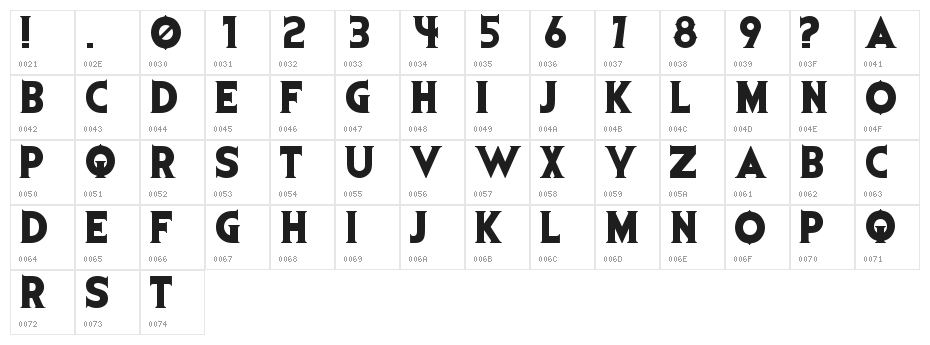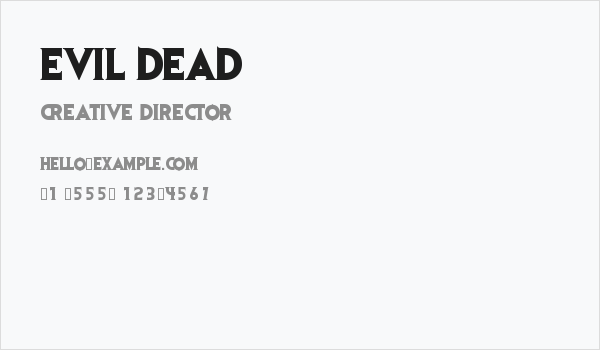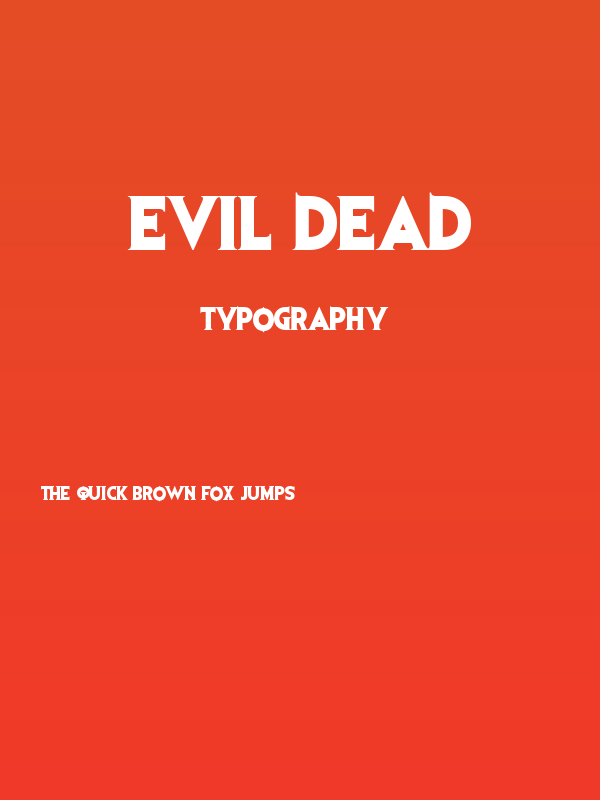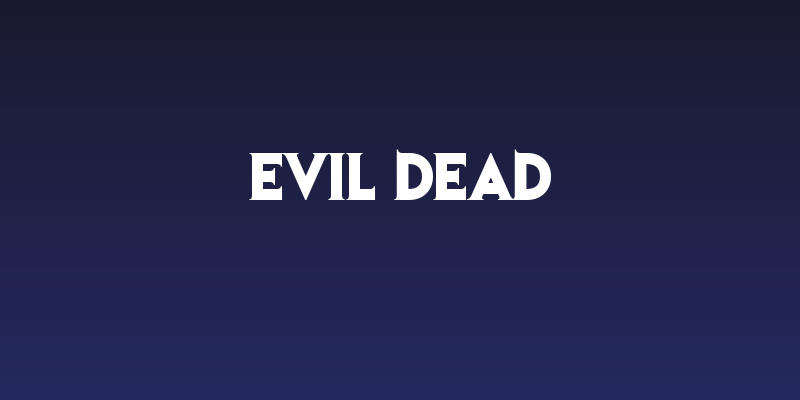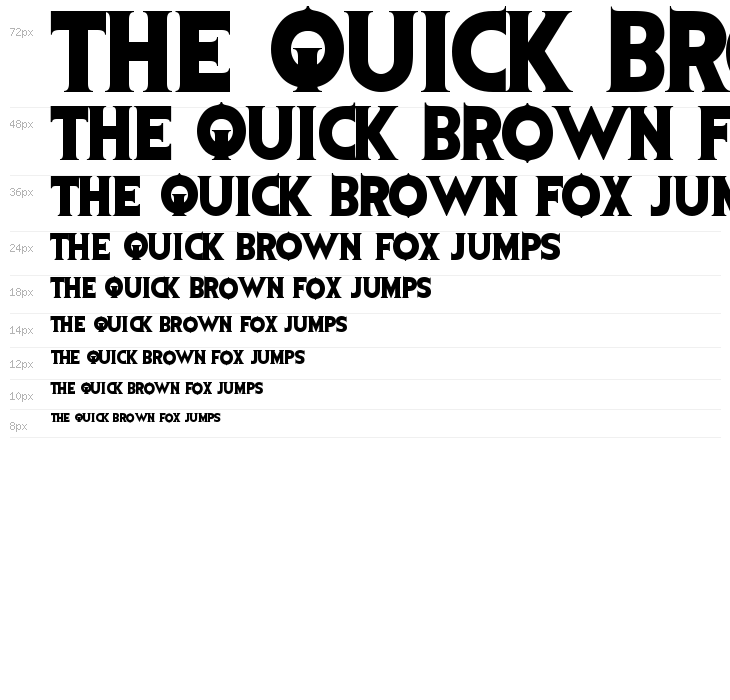
Evil Dead Font
Evil Dead Description
This font features a bold and striking design with sharp, angular edges and a strong presence. The uppercase letters are particularly prominent, with a unique cutout style that adds a sense of drama and intensity. The numbers and special characters maintain this bold aesthetic, ensuring consistency across all elements. The font's design is reminiscent of classic horror themes, making it ideal for projects that require a sense of suspense or thrill. Its distinct style is both eye-catching and memorable, perfect for making a statement.
| Proposed Projects | Ideal for horror movie posters, Halloween event promotions, themed merchandise, and any project needing a dramatic flair. |